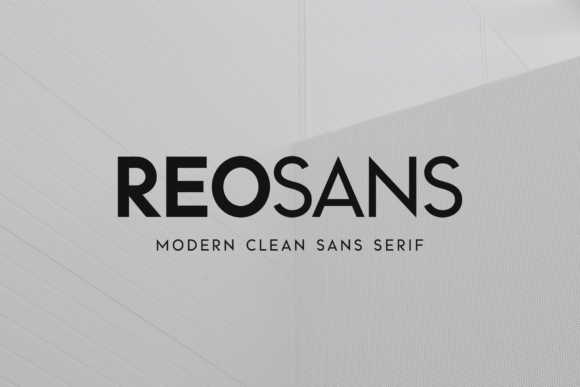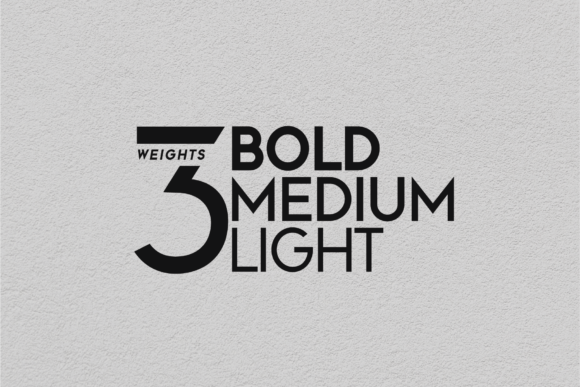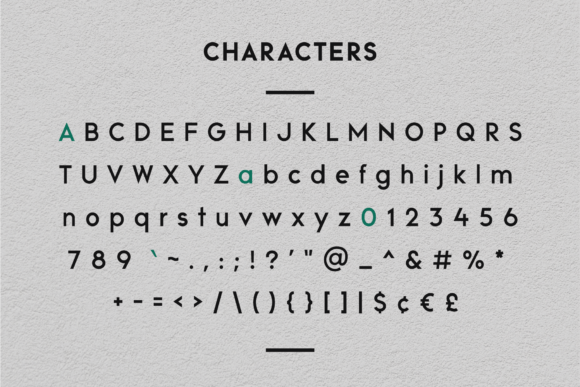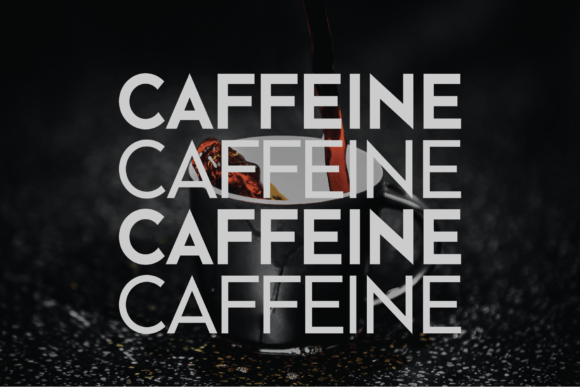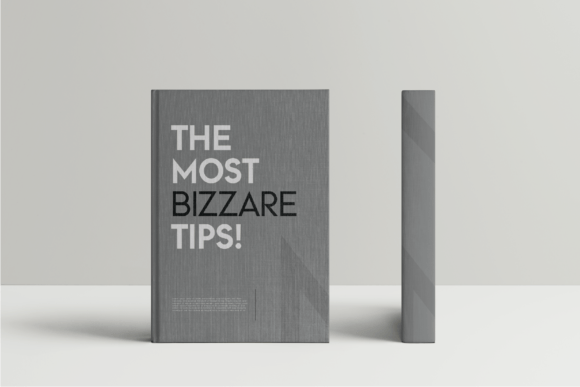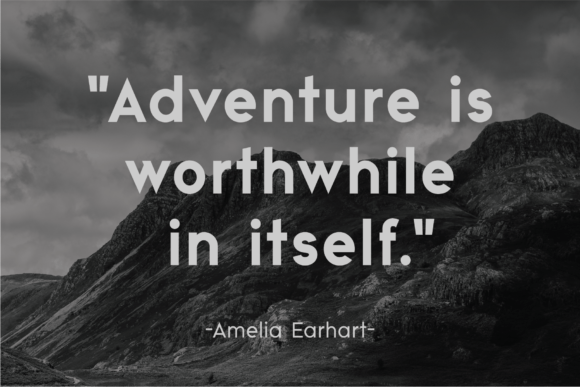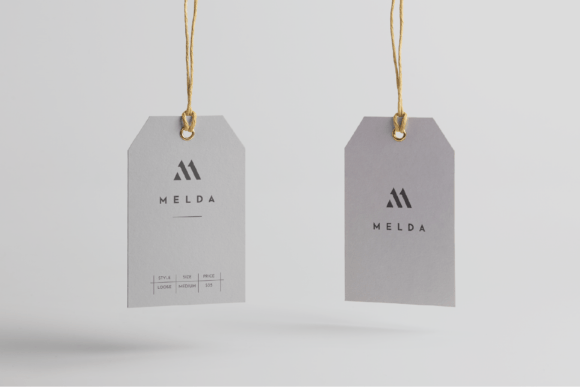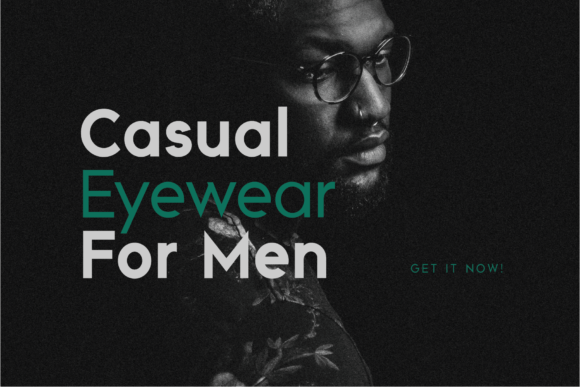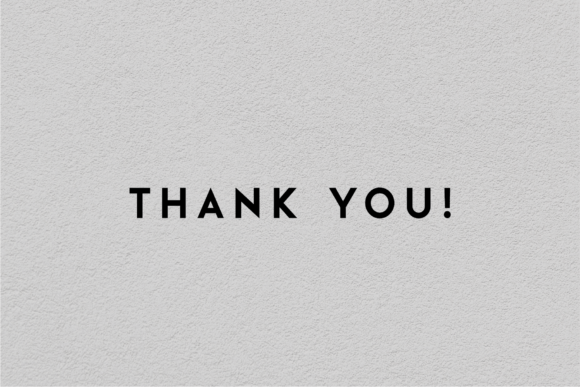
Reo Sans Font
Reo sans is a modern geometric sans serif font featuring 3 weights bold, medium, and light. this is a timeless sans serif typeface with a clean and modern feel. Reo Sans is a perfect choice for logo designs, branding, packaging, posters, social media posts, and so on.